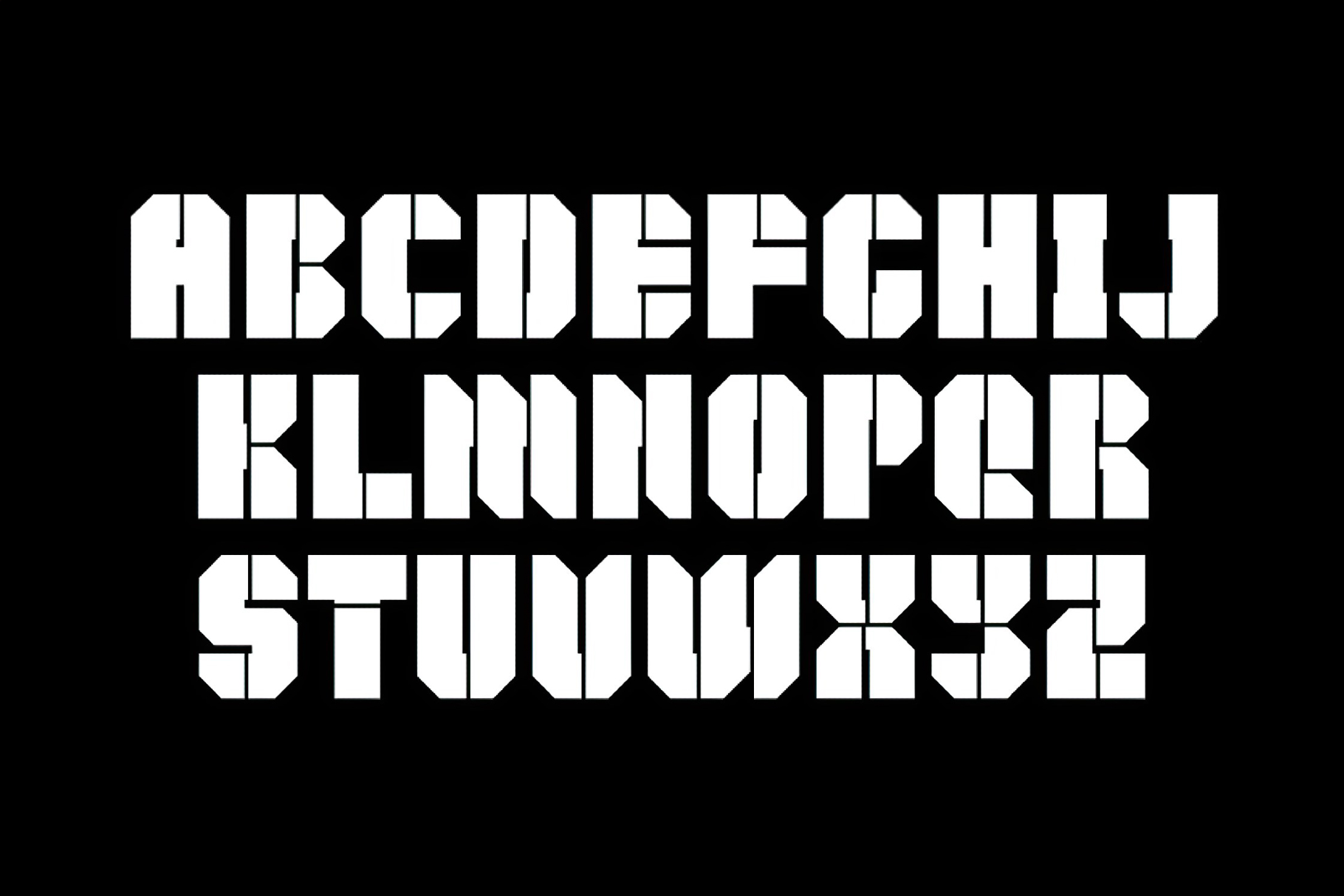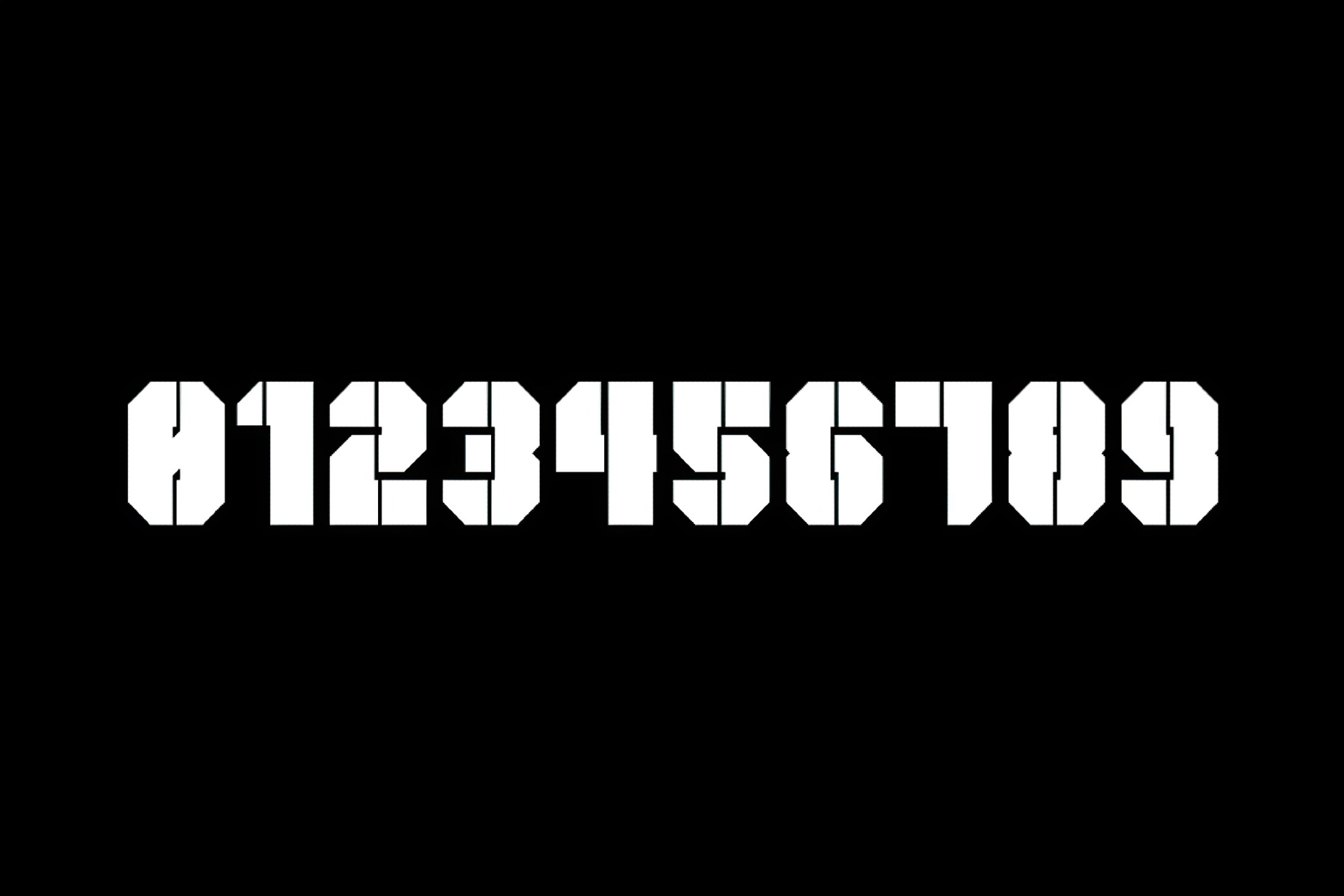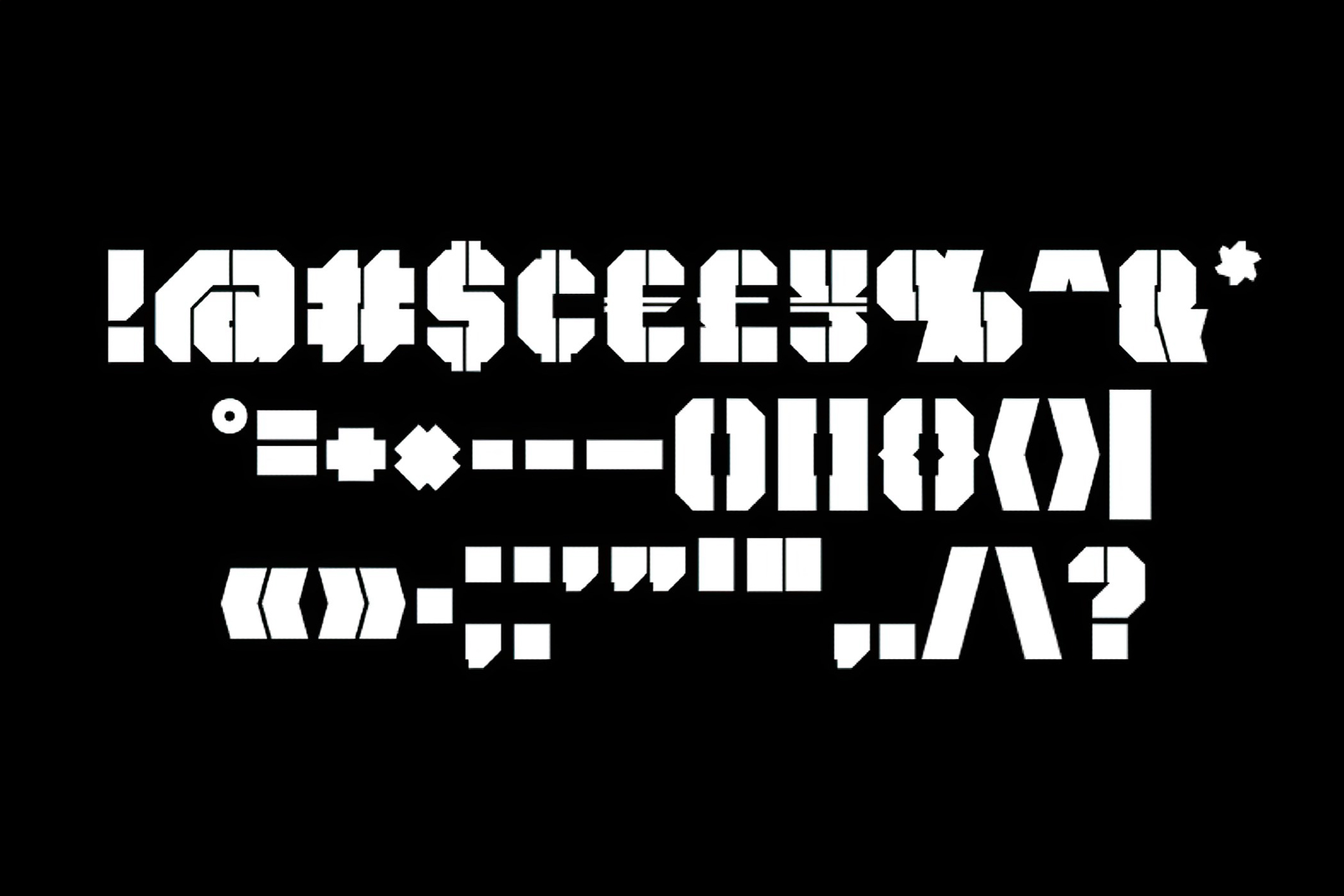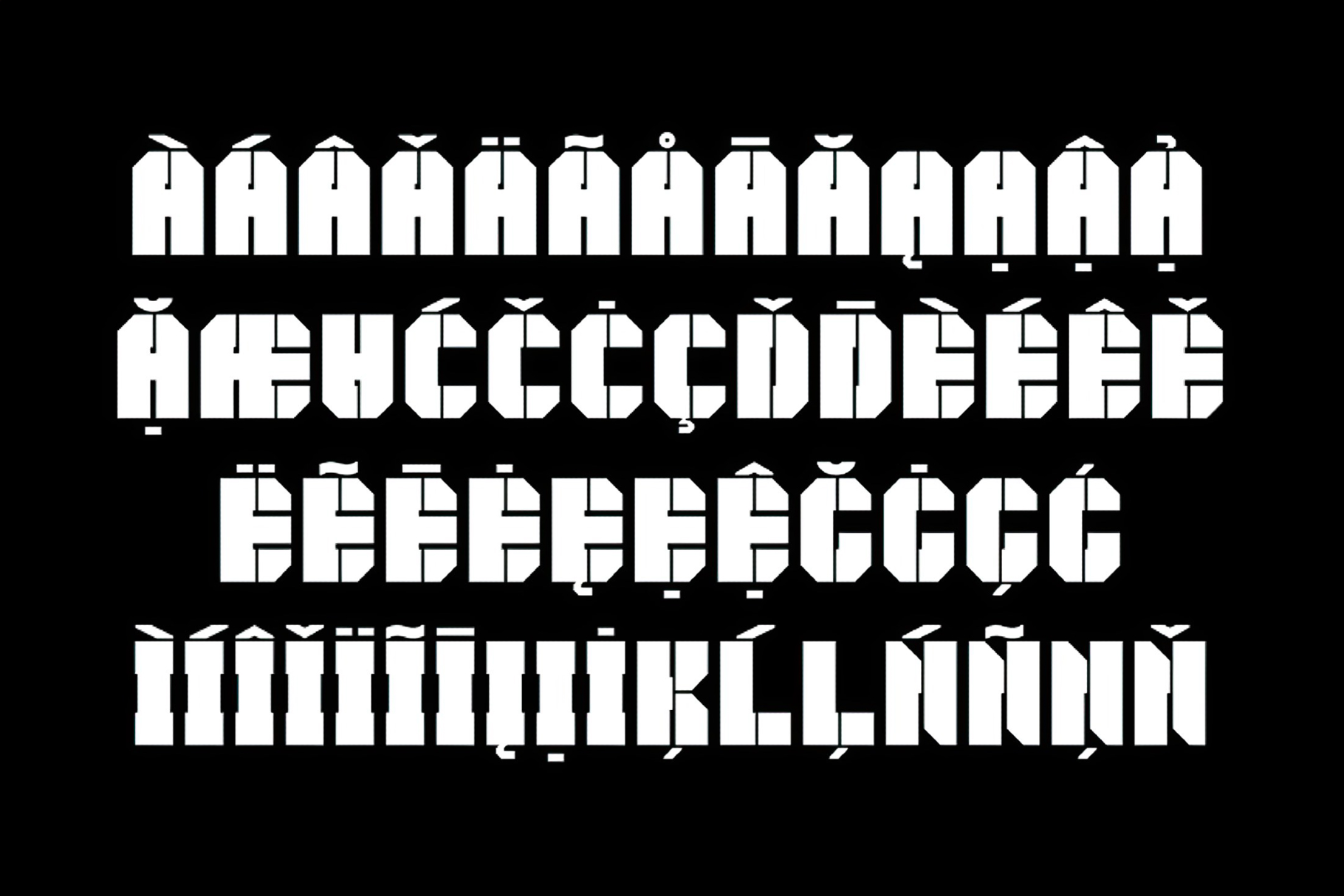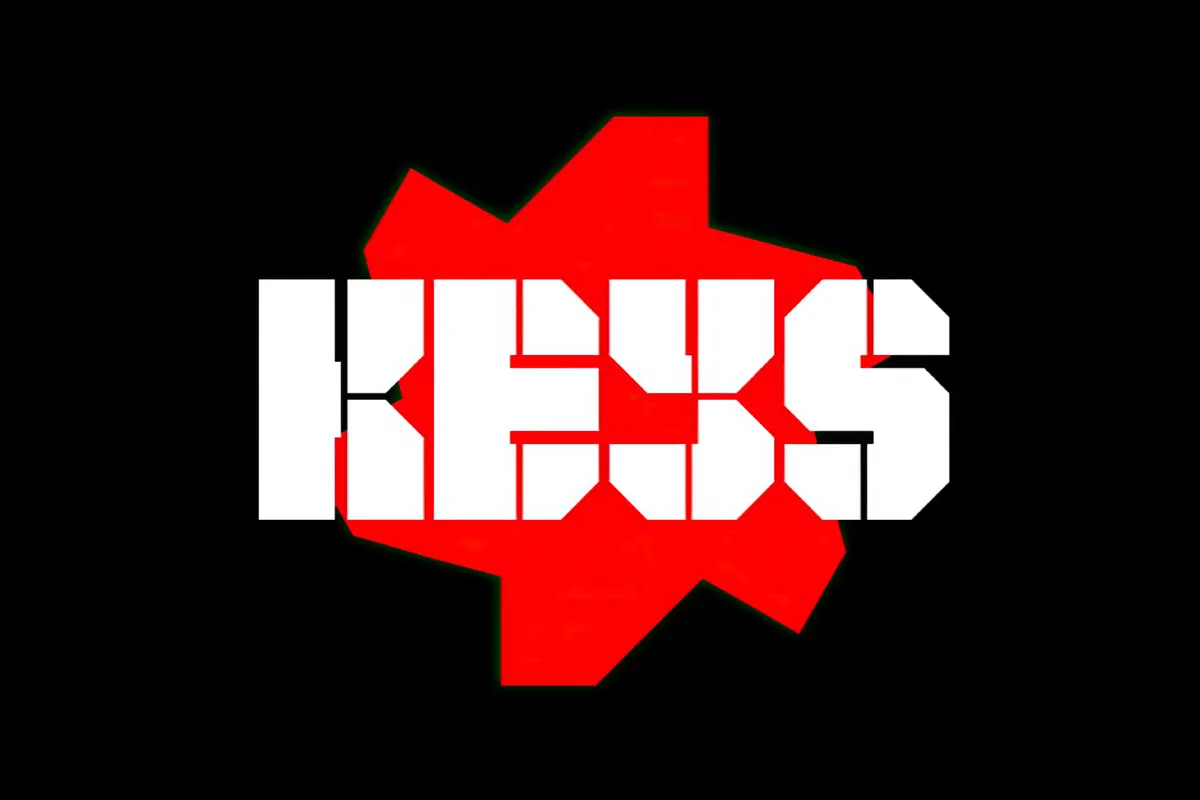
Keys Stencil Font
Keys
Keys Stencil is a bold, all-caps font that slices its letters into clean, geometric segments. Think industrial crate markings for instance. This typeface is well-suited to poster headlines, utilitarian branding, packaging callouts, military UI mockups, signage and wayfinding, apparel graphics, album art, and social titles.
- Uppercase Latin letters.
- Multilingual support across extended Latin scripts.